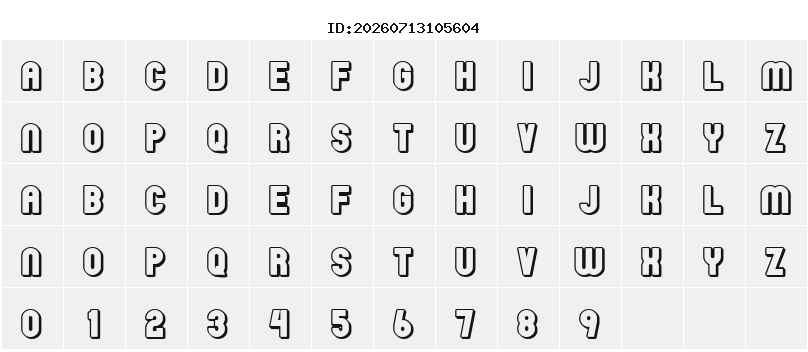
Rainy Days Preview
• Font Name: Rainy Days
• Full Font Name: Rainy Days
About Rainy Days.ttf
Rainy Days.ttf is a modern, elegant sans-serif font designed for ultimate readability and visual harmony. Perfect for branding, headlines, web design, and print materials.